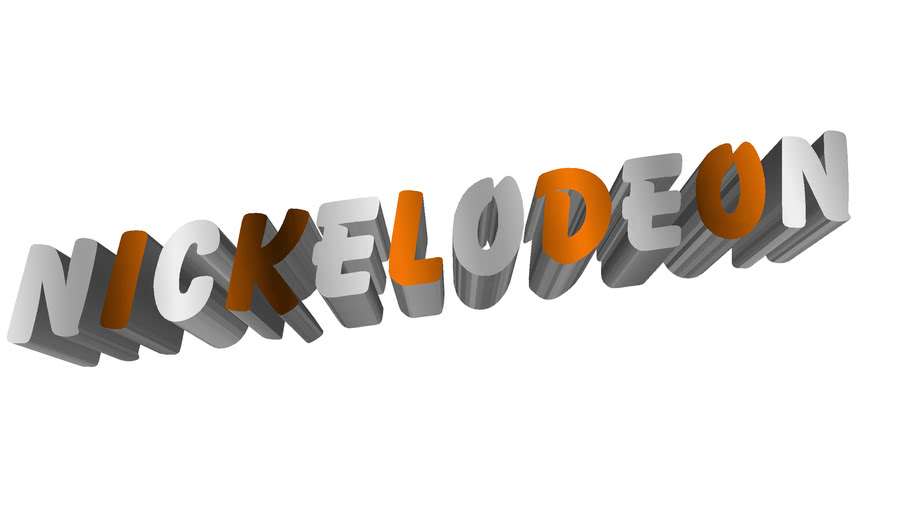
Balloon Font Nickelodeon. Web nickballoon is a font that has a balloon shape and various styles. Click to find the best 17 free fonts in the nickelodeon.
Click to find the best 17 free fonts in the nickelodeon. (already suggested here) edited 2 times. You can download it for free in ttf format and use it for. Web nickballoon is a font that has a balloon shape and various styles. Web balloon font was most famously known for the nickelodeon logo, which had white letters on a background of orange splat from late. Web vanished from home by fonts on us. Web the font you want is balloon sc d extra bold.
(already suggested here) edited 2 times. Web the font you want is balloon sc d extra bold. Web vanished from home by fonts on us. Click to find the best 17 free fonts in the nickelodeon. (already suggested here) edited 2 times. You can download it for free in ttf format and use it for. Web balloon font was most famously known for the nickelodeon logo, which had white letters on a background of orange splat from late. Web nickballoon is a font that has a balloon shape and various styles.